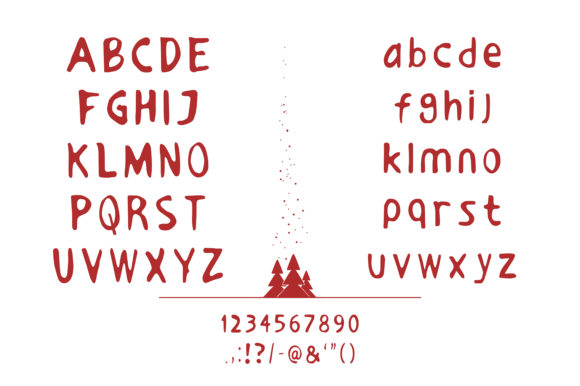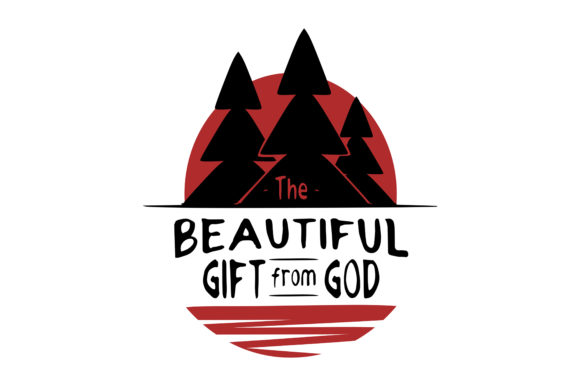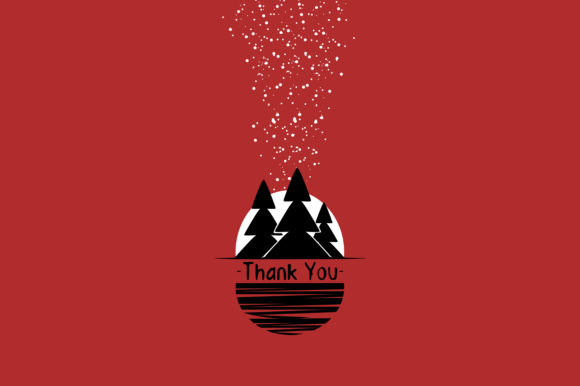
Evano Font: A Striking Handcrafted Typeface for Creative Designs
The Evano font is a beautiful, handcrafted typeface that has been gaining popularity among designers and crafters alike. Its clean letters and unique charm make it perfect for simple logo designs, doodle texts, and quote designs. In this article, we’ll dive into the world of Evano font, exploring its features, uses, and benefits for creative professionals.
The Story Behind Evano Font
The Evano font is a product of careful craftsmanship, designed to bring a touch of personality to any design project. Its creator aimed to develop a typeface that would be both visually appealing and versatile, suitable for a wide range of applications. With its clean lines and handcrafted feel, Evano font has become a go-to choice for designers seeking a unique and stylish look.
Key Features of Evano Font
So, what makes Evano font so special? Here are some of its key features:
- Clean Letters: Evano font boasts clean, crisp letters that are easy to read and visually appealing. This makes it perfect for use in logo designs, headings, and titles.
- Handcrafted Feel: The font’s handcrafted nature gives it a unique, personal touch that’s hard to replicate with machine-generated typefaces.
- Versatility: Evano font is highly versatile, suitable for use in a wide range of design projects, from simple logos to intricate doodle designs.
Uses of Evano Font
Evano font is an incredibly versatile typeface, making it suitable for a wide range of design applications. Here are some popular uses for Evano font:
- Logo Designs: Evano font’s clean letters and unique charm make it perfect for simple logo designs that require a touch of personality.
- Doodle Texts: The font’s handcrafted feel and playful vibe make it ideal for doodle texts and quote designs that require a personal touch.
- Quote Designs: Evano font is well-suited for quote designs, adding a touch of elegance and sophistication to inspirational quotes and phrases.
Benefits of Using Evano Font
So, why should designers and crafters choose Evano font for their projects? Here are some benefits of using this striking typeface:
- Unique Look: Evano font offers a unique, handcrafted look that’s hard to replicate with other typefaces.
- Ease of Use: The font is easy to read and works well in a variety of design applications.
- Time-Saving: With Evano font, designers can create professional-looking designs quickly and efficiently, saving time and effort.
Tips for Using Evano Font
To get the most out of Evano font, here are some tips for using this striking typeface:
- Experiment with Sizes: Evano font works well in a variety of sizes, from small headings to large titles.
- Pair with Other Fonts: The font pairs well with other typefaces, making it easy to create visually appealing combinations.
- Use in Digital and Print Designs: Evano font is suitable for both digital and print designs, making it a versatile choice for designers.
In conclusion, Evano font is a striking handcrafted typeface that’s perfect for designers and crafters seeking a unique and stylish look. Its clean letters, handcrafted feel, and versatility make it suitable for a wide range of design applications, from simple logo designs to intricate doodle texts and quote designs. With its ease of use, unique look, and time-saving benefits, Evano font is an excellent choice for any design project.